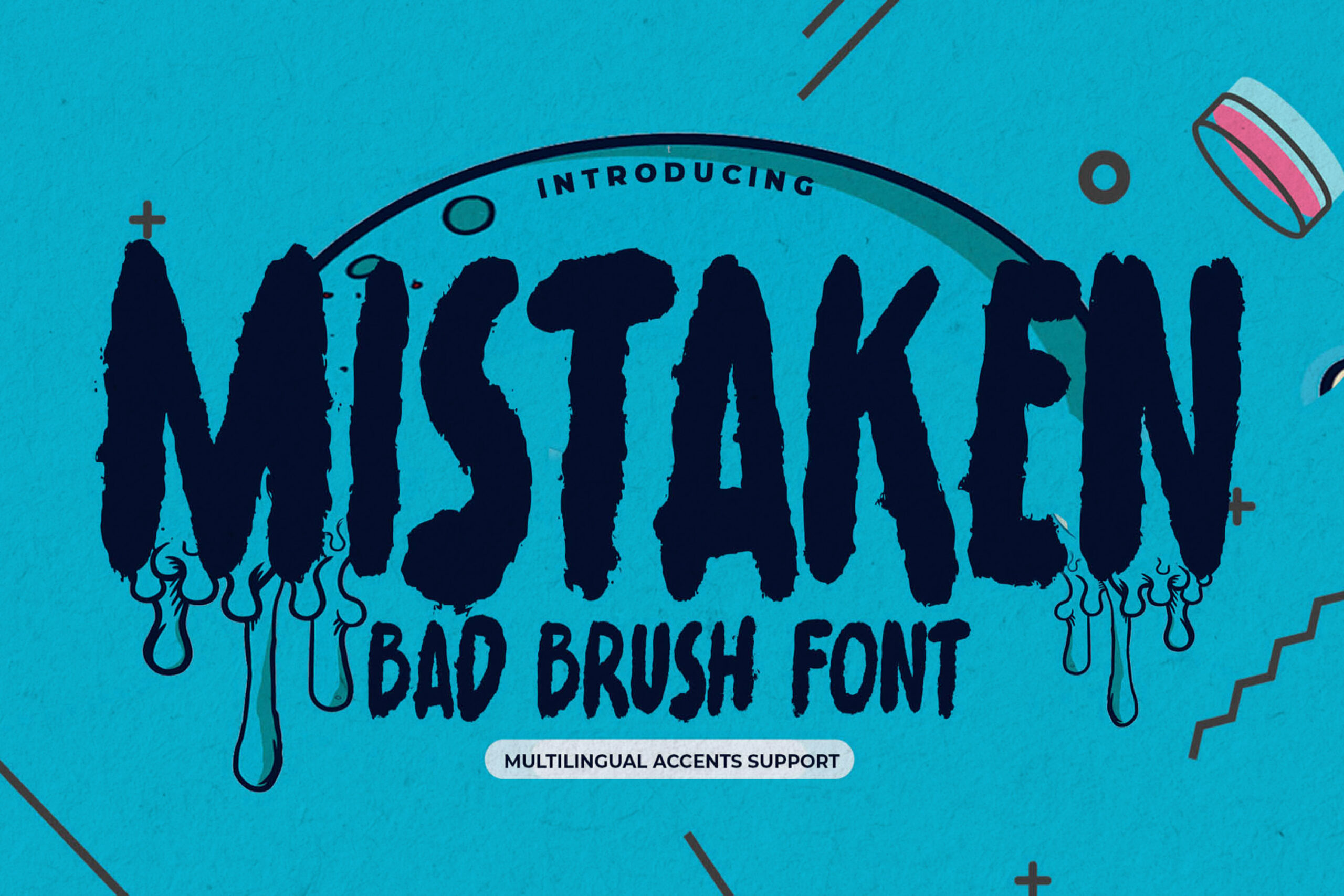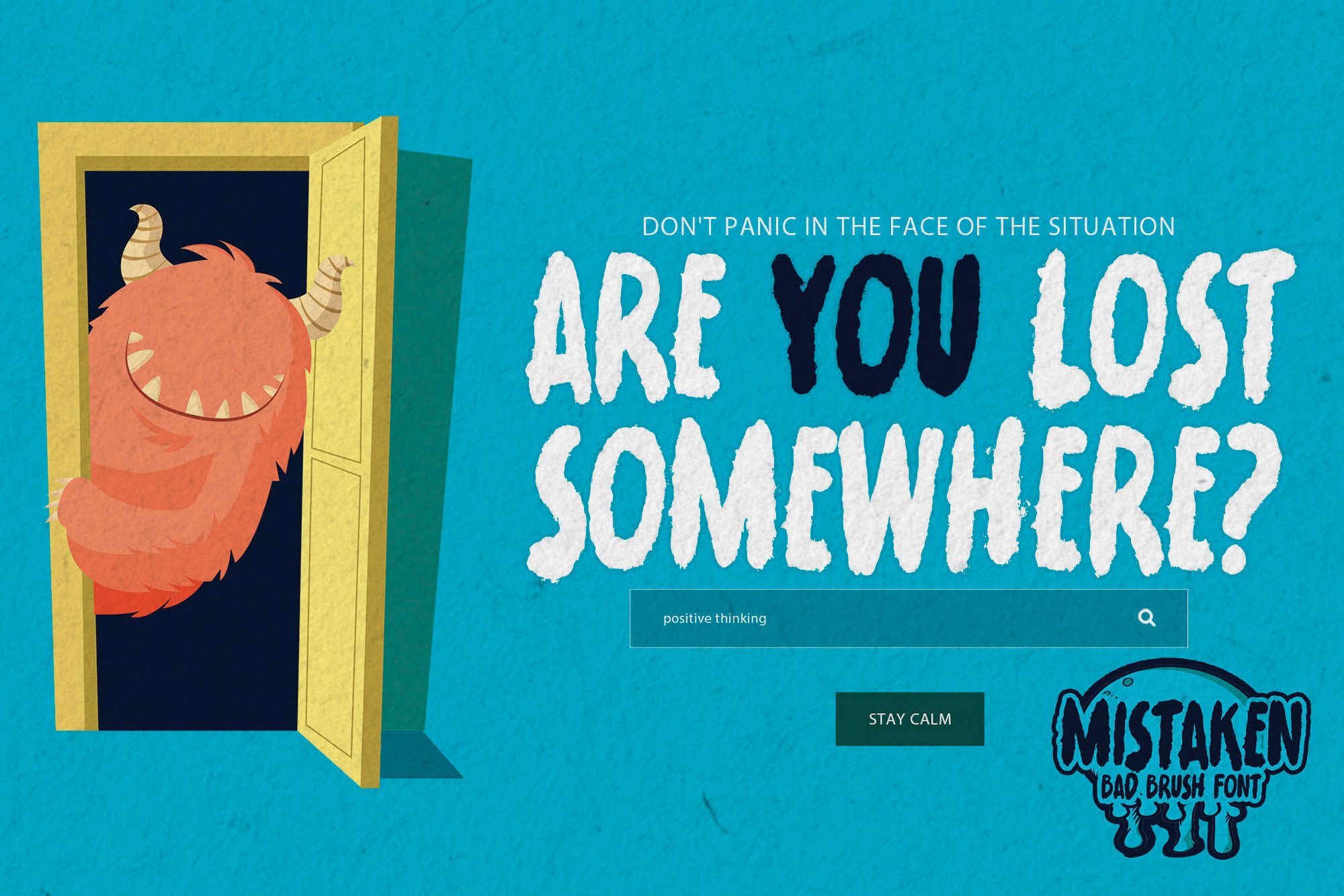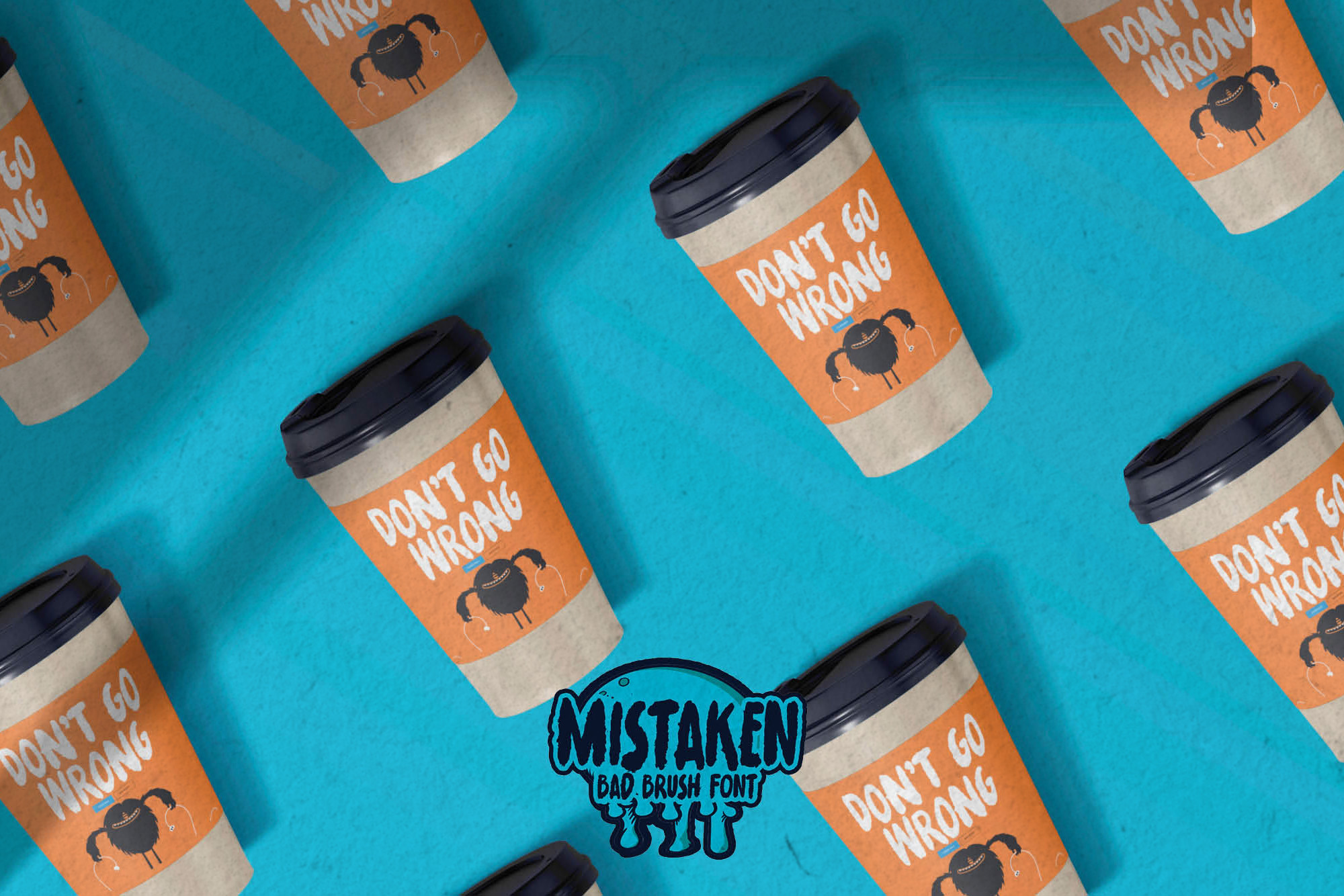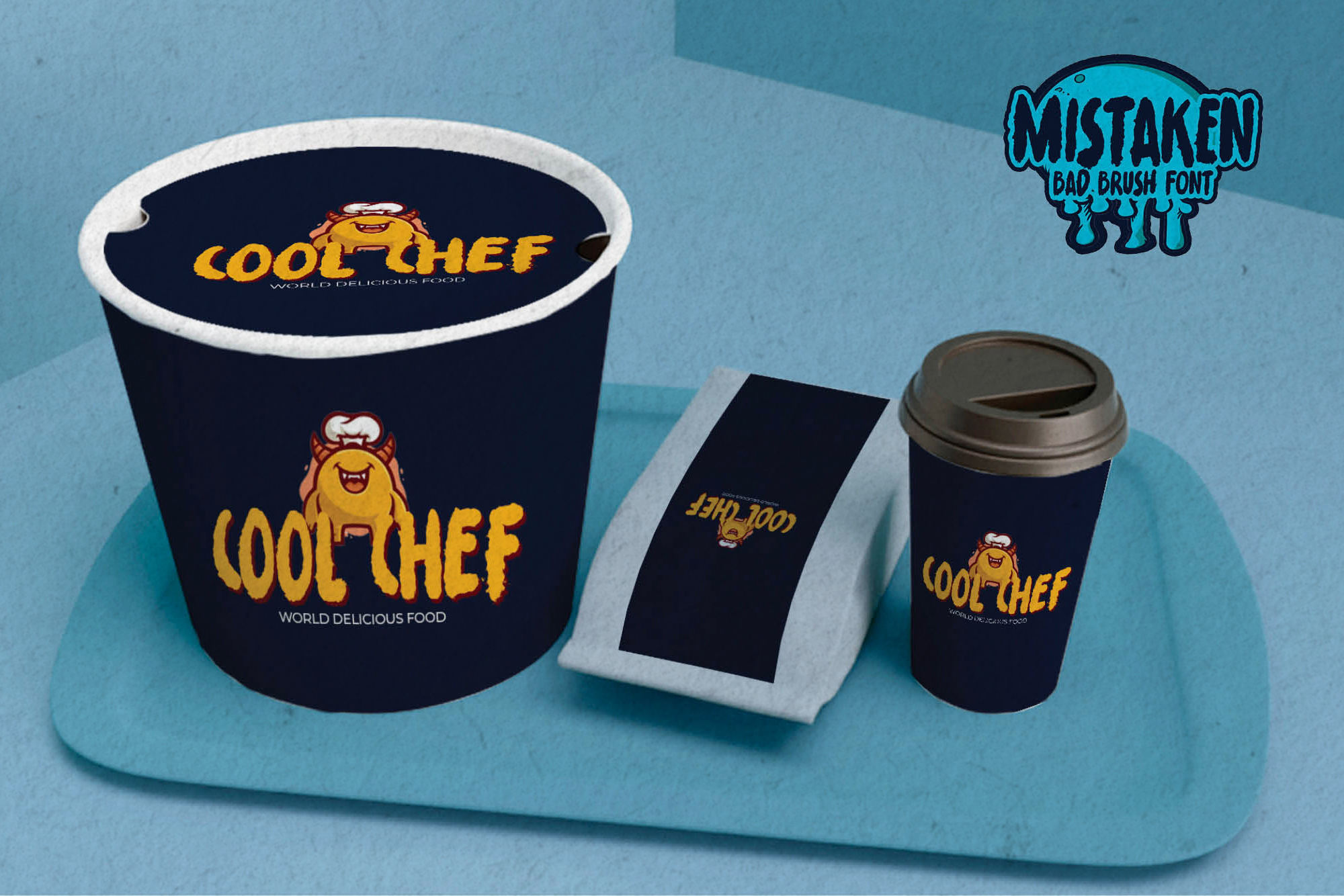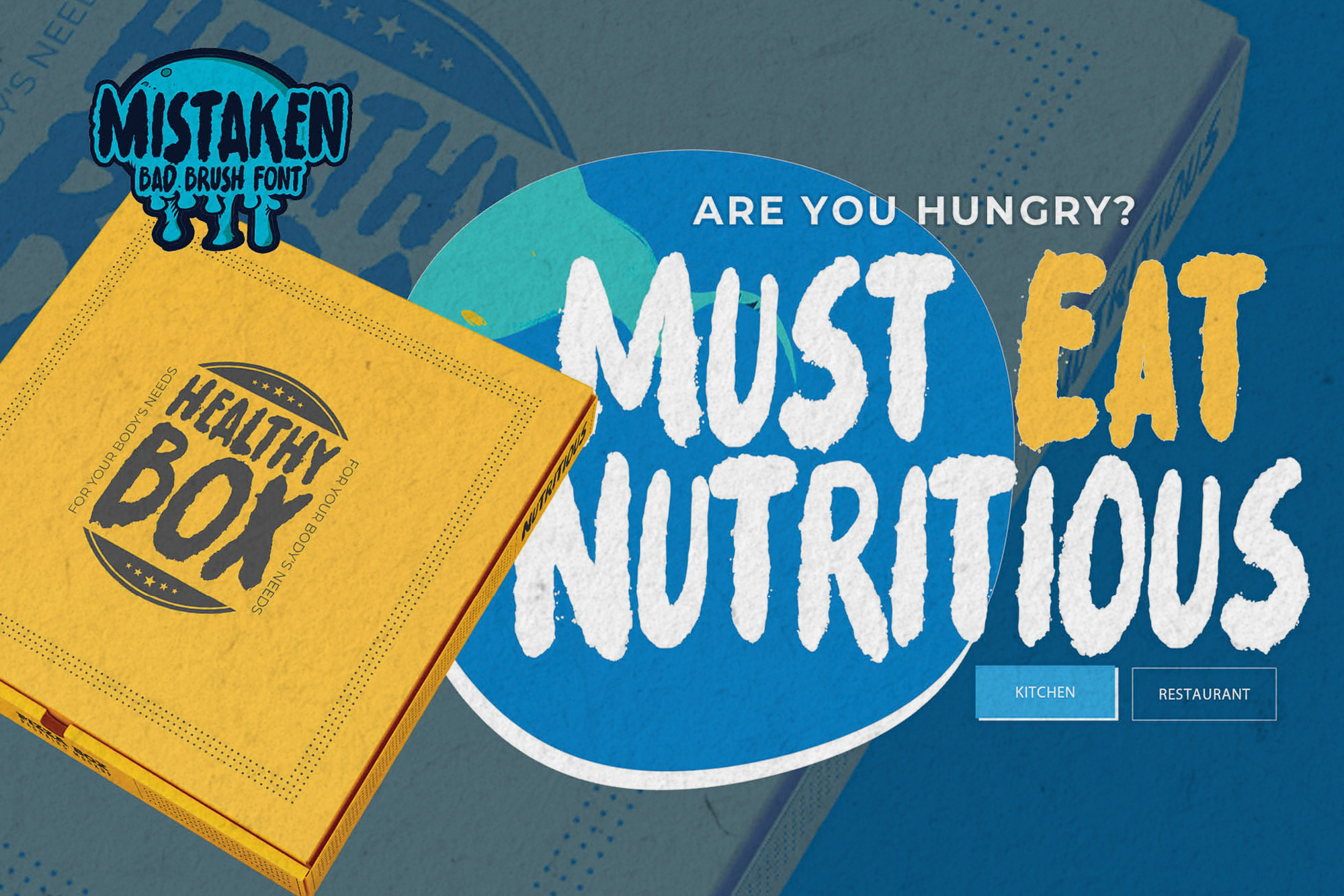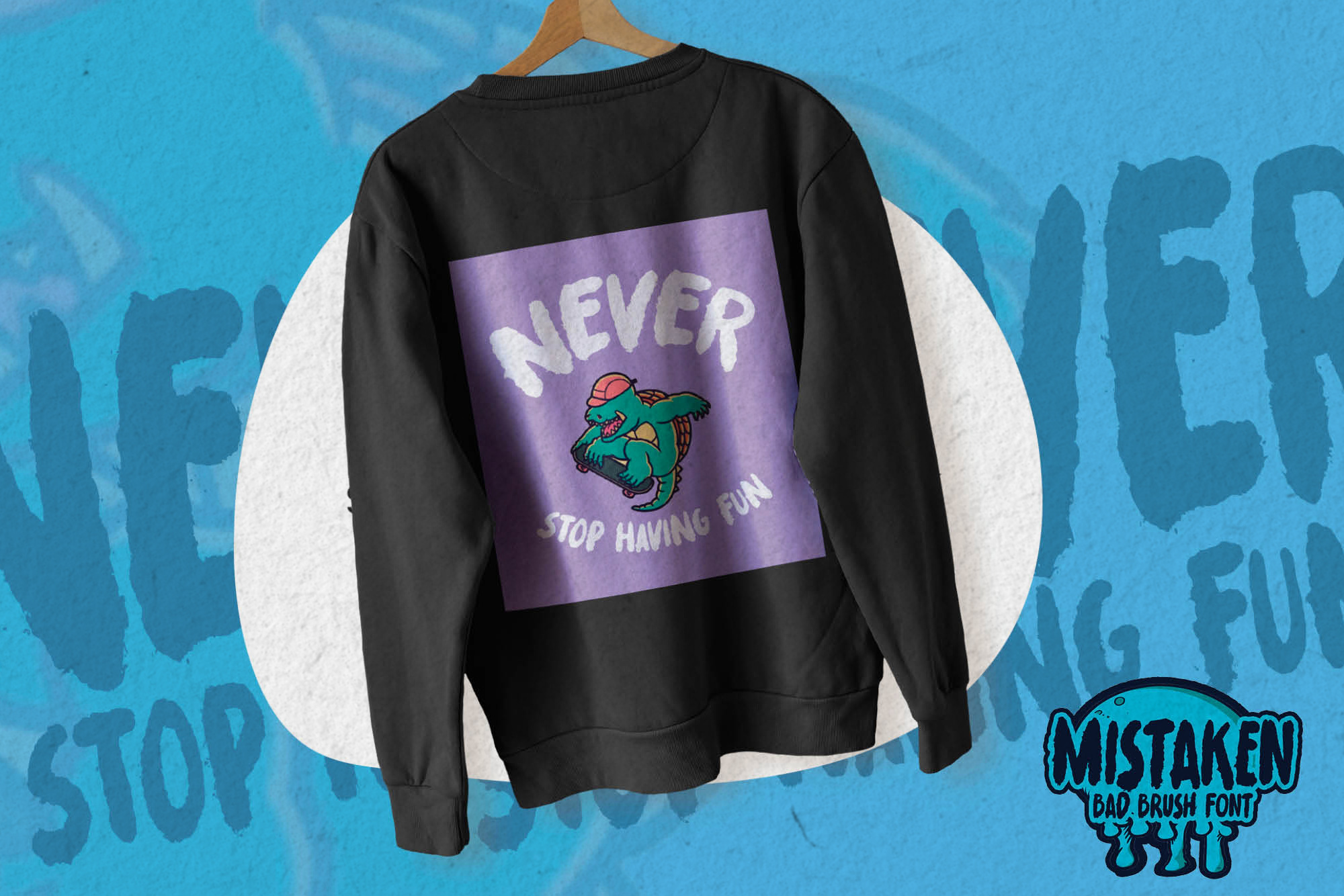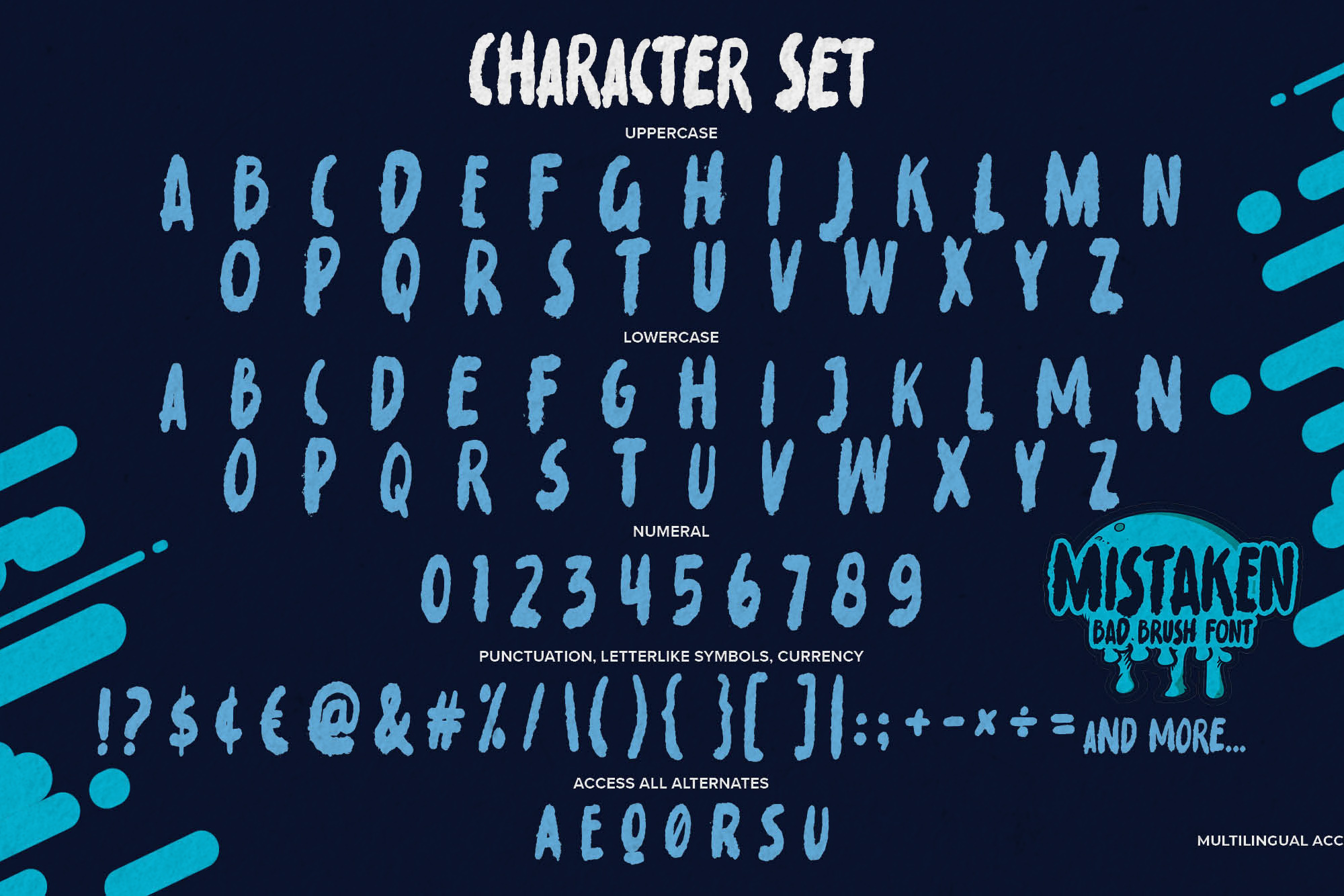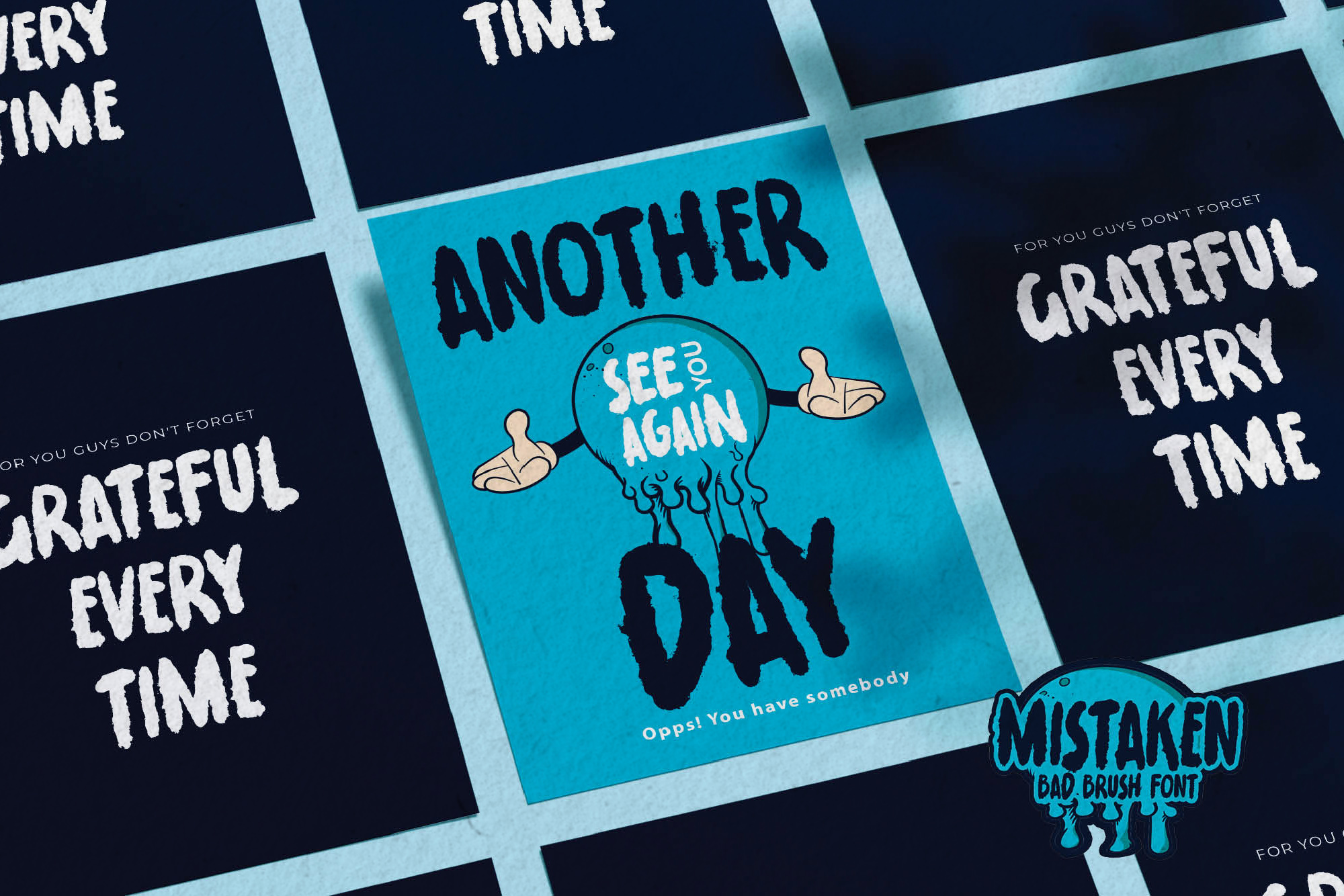
MISTAKEN – Bad Brush Font , modern style and dramatic movement that is written casually and quickly.
The best for labels, poster, project designs look modern, authentic and fun. It’s perfect for labels, quotes, posters, DIY projects, branding, packaging, greeting cards, websites, photography overlays, signs, scrapbooking, tags and so much more! That is why MISTAKEN has a horror, and strong characteristic more natural look. You can activate Alternate glyphs OpenType panel.